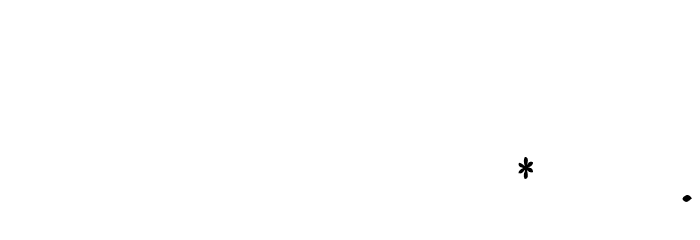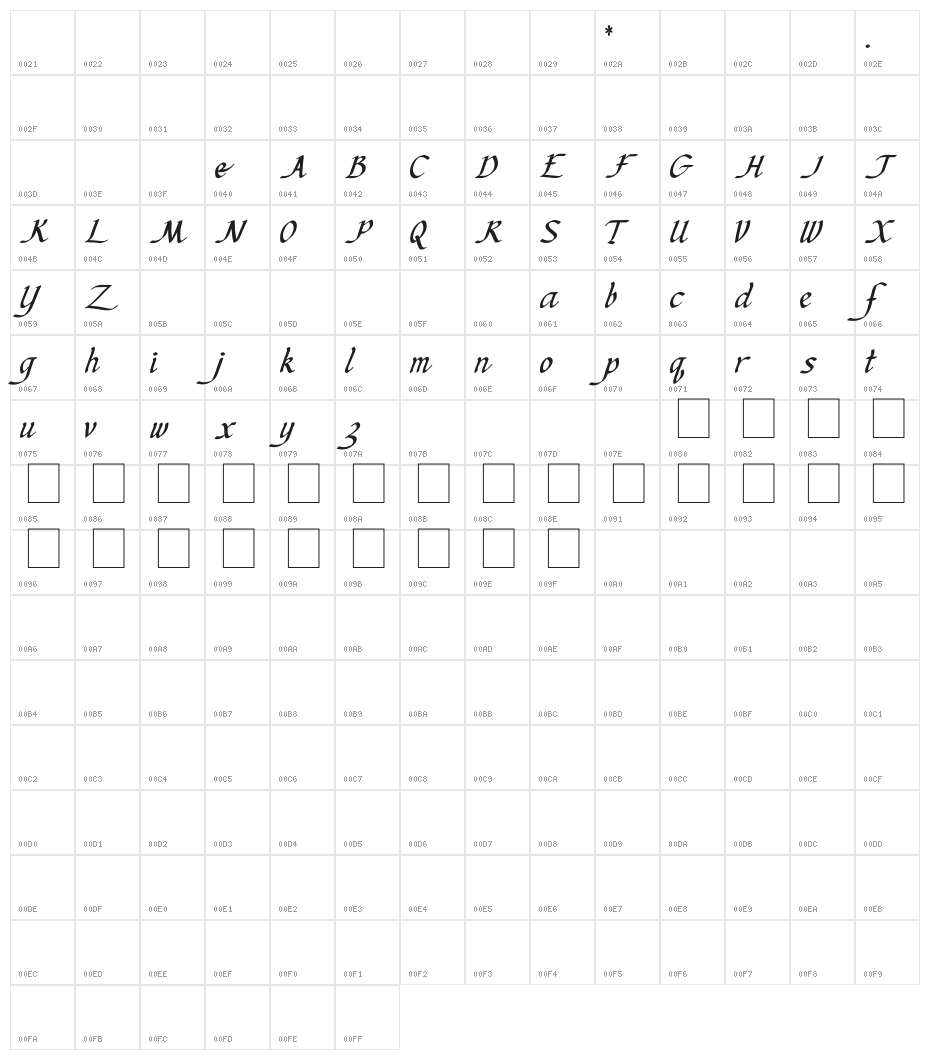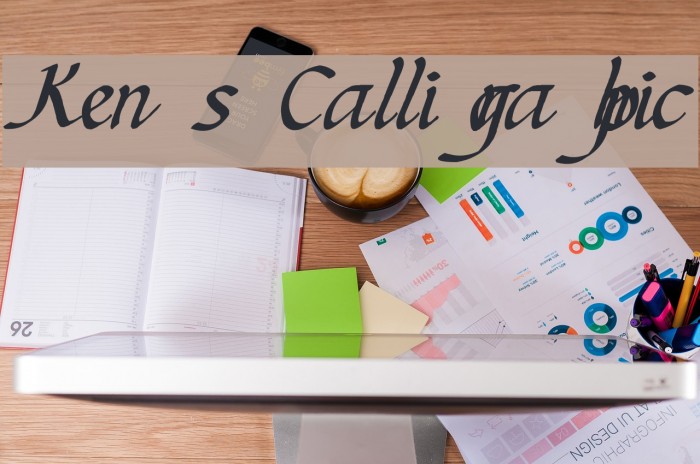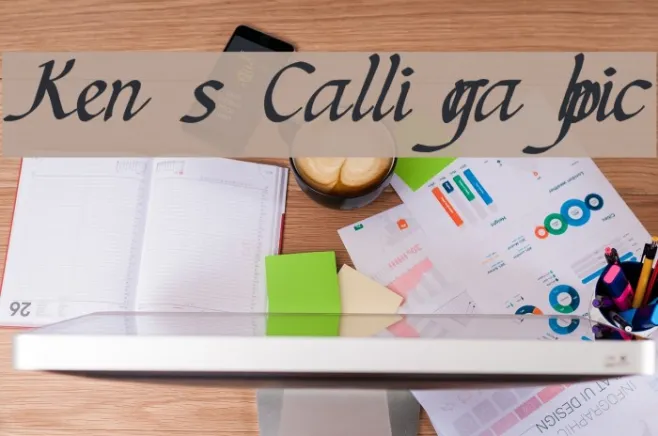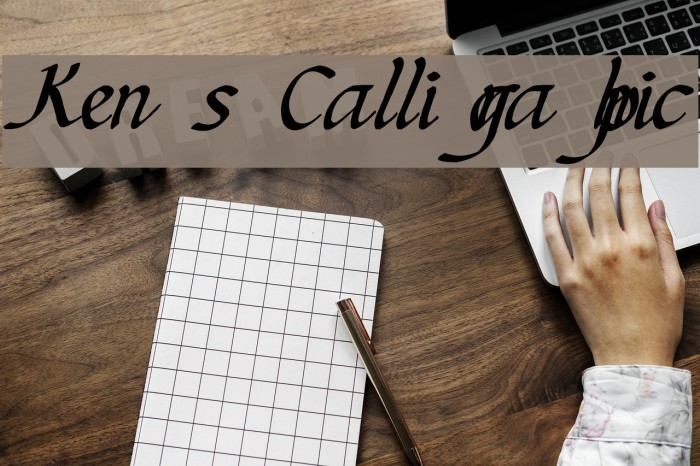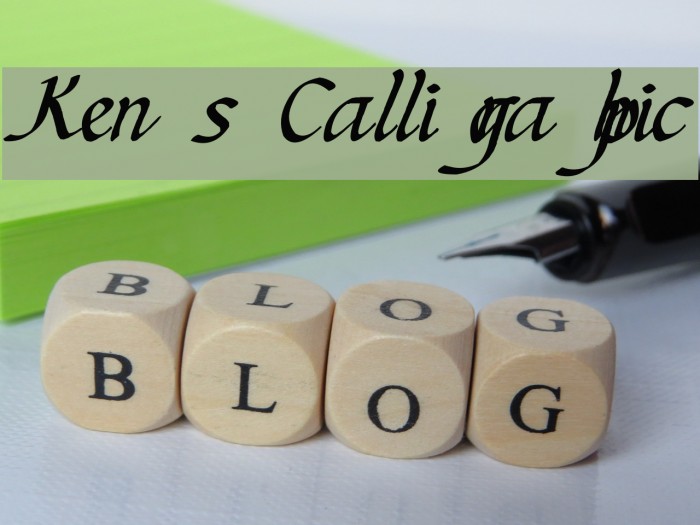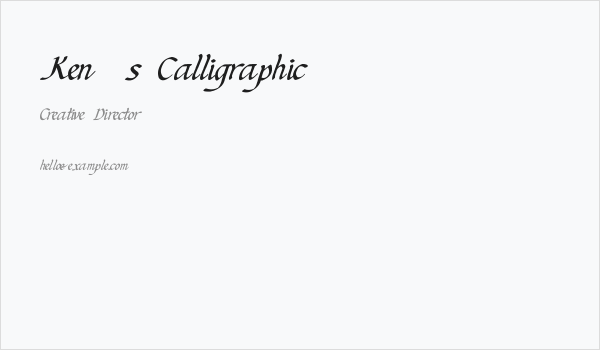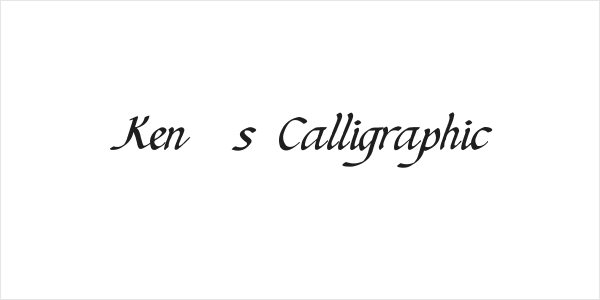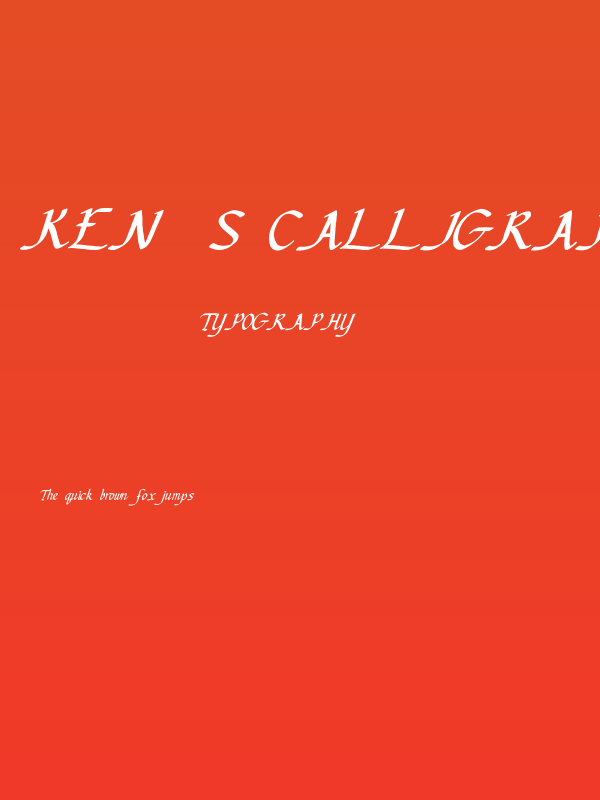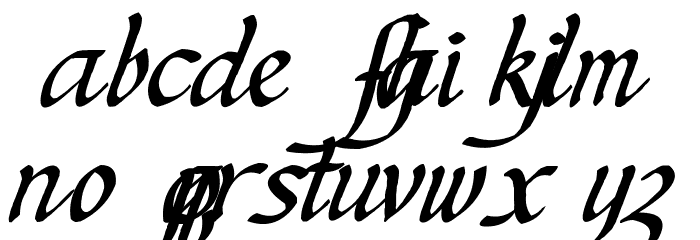
Ken's Calligraphic Font
Ken's Calligraphic Description
This font exudes a classic calligraphic style, characterized by elegant, flowing strokes that mimic traditional handwriting. The uppercase letters are slightly slanted, with a consistent stroke width that adds a touch of sophistication. The lowercase letters maintain a harmonious flow, with some letters featuring distinctive loops and flourishes. The numerals are styled to match the overall aesthetic, providing a cohesive look. Special characters are designed with the same attention to detail, ensuring they blend seamlessly with the alphabetic characters. This font is ideal for projects that require a touch of elegance and tradition.
| Use Case | Headlines, Invitations, Formal documents |
| Proposed Projects | Ideal for wedding invitations, formal event programs, certificates, and elegant branding. |